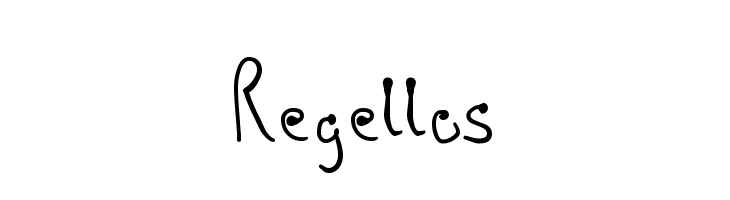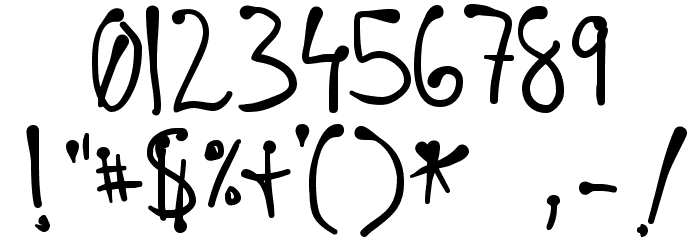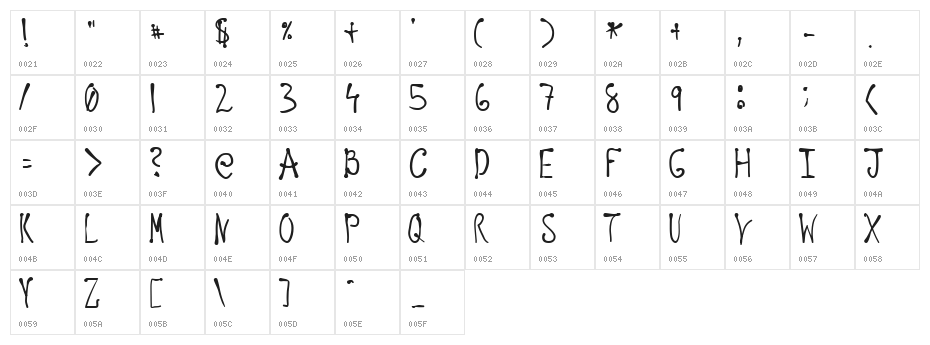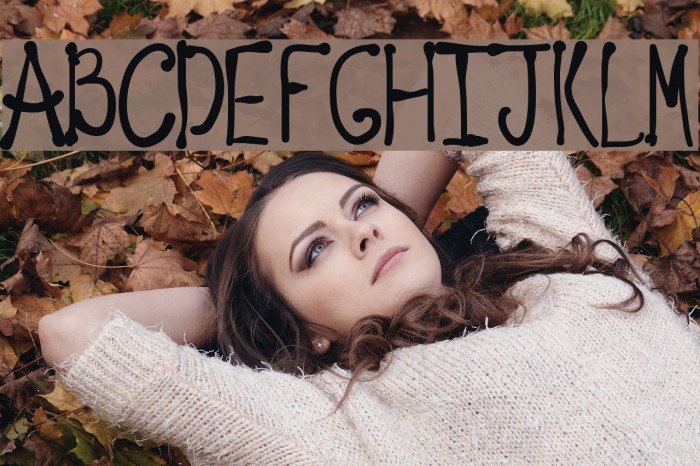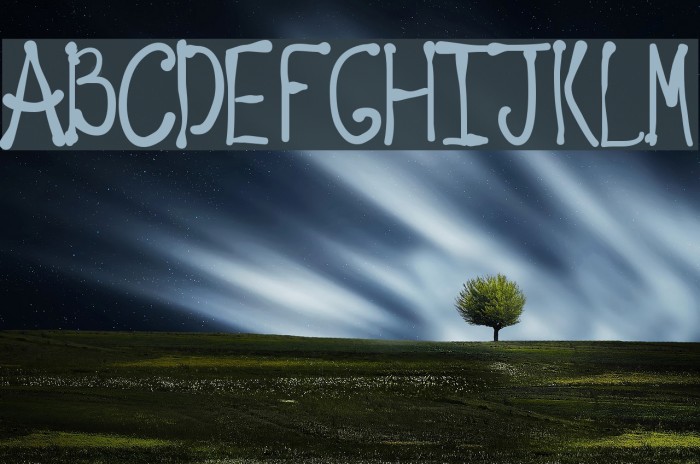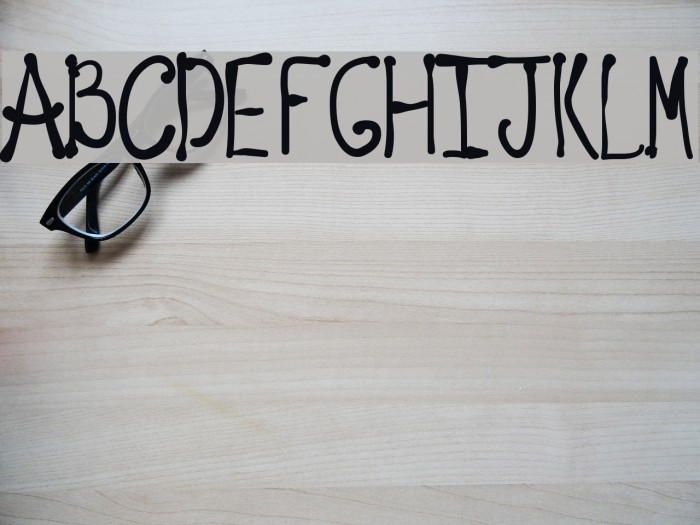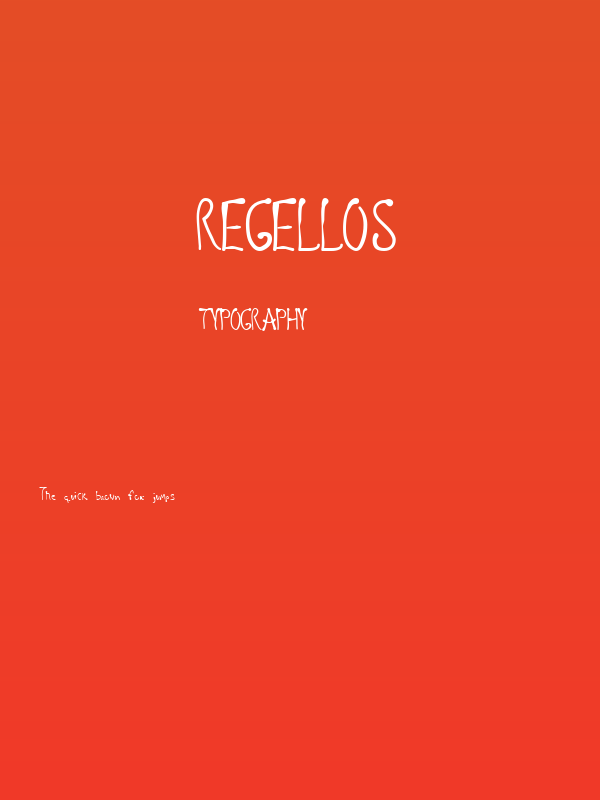
Regellos Font
Regellos Description
This font exhibits a playful and whimsical style, characterized by its irregular and hand-drawn appearance. The letters have a casual, almost childlike quality, with varying stroke thicknesses and uneven baselines that add to its charm. The uppercase letters are bold and prominent, while the lowercase letters maintain a consistent flow, enhancing the font's informal aesthetic. The numerals and special characters follow the same quirky design, making the font suitable for creative and fun projects. Its unique style is perfect for capturing attention and conveying a sense of spontaneity and creativity.